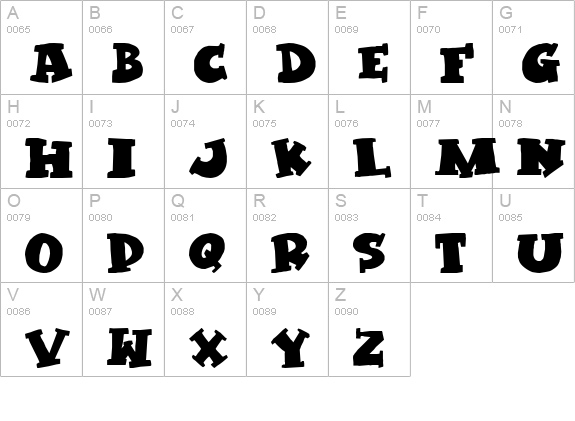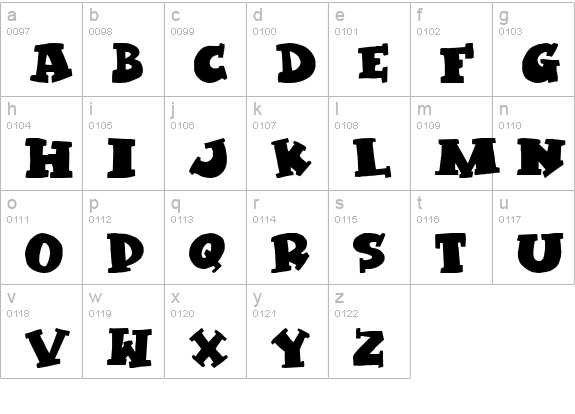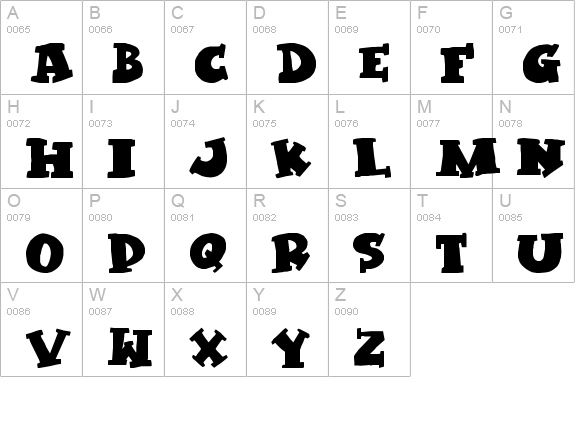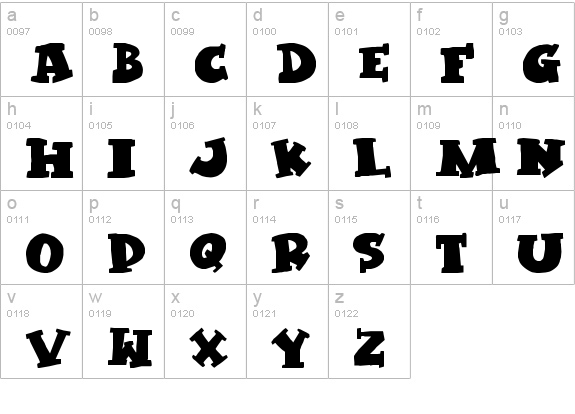
Kleptomaniac Font Details
Introducing Kleptomaniac font, a captivating and dynamic typeface that effortlessly combines elegance with a touch of rebelliousness. This font is designed for those who dare to stand out from the crowd and make a bold statement with their typography. With its unique and eye-catching letterforms, Kleptomaniac font is perfect for a wide range of design projects, from branding and logos to posters and headlines. Its intricate details and stylish curves add a sense of sophistication and allure to any composition, drawing the viewer in with its irresistible charm. But what truly sets Kleptomaniac font apart is its availability as a free download. That's right, you heard it correctly! Kleptomaniac font can be freely obtained at FontsMarket.com, allowing designers, creatives, and enthusiasts alike to access this extraordinary typeface without any cost. By making Kleptomaniac font freely available, its creators aim to empower and inspire a global community of designers, ensuring that everyone can have access to exceptional typographic resources. This font represents a celebration of individuality and creativity, offering endless possibilities to express oneself through typography. So why wait? Don't miss out on the opportunity to enhance your designs with the captivating allure of Kleptomaniac font. Download it for free at FontsMarket.com and let the magic of this extraordinary typeface elevate your next project to new heights. Unleash your creativity and make a lasting impression with Kleptomaniac font today!